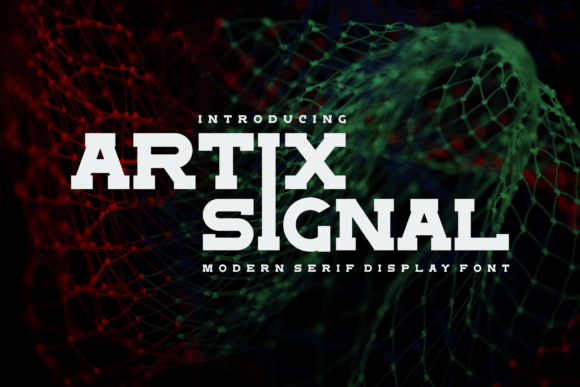
I still remember the frustration of working on a project, hours spent crafting the perfect design, only to realize that the font I chose was completely off. It was like the text was screaming at me, “I’m not working!” 😩 I was on a tight deadline, and my client was waiting for the final product. That’s when I stumbled upon Artix Signal, a stylish, modern serif font that changed the game for me.
First Impressions: A Love Affair with Artix Signal
Artix Signal is a sleek and sophisticated font that has become a staple in my design toolkit. Its clean lines and elegant curves make it perfect for adding a touch of refinement to any text. Whether I’m working on a print or digital project, Artix Signal brings a fresh and professional look that’s hard to resist.
Honest Review: The Good, the Bad, and the Quirks
• ✨ Clean and elegant design: Artix Signal’s modern serif design makes it perfect for projects that require a touch of sophistication.
• ✅ Versatility: It works beautifully in both print and digital designs, making it a great addition to any design toolkit.
• 💡 Easy to read: The font is clear and legible, even at small sizes, making it perfect for body text.
Small Quirks and Limitations:
While Artix Signal is an excellent font, it’s not perfect. Here are a few things to keep in mind:
• 🤔 Limited availability of stylistic alternates: While Artix Signal has some great OpenType features, it’s not overflowing with stylistic alternates.
• ⚠️ Not ideal for very large headings: Artix Signal is best suited for body text and smaller headings. For very large headings, you might want to choose a more dramatic font.
The Designer Behind Artix Signal: A Backstory
Artix Signal was designed by a team of typographers who wanted to create a font that would bring a touch of sophistication to any design project. With its clean lines and elegant curves, Artix Signal is the perfect choice for designers who want to elevate their work.
Font Name Artix Signal Font
Author artchiles design
Q: What is Artix Signal?
A: Artix Signal is a stylish, modern serif font designed for adding a touch of sophistication to any text.
Q: Is Artix Signal suitable for body text?
A: Yes, Artix Signal is clear and legible, making it perfect for body text.
Q: Does Artix Signal have OpenType features?
A: Yes, Artix Signal has some great OpenType features, including stylistic alternates and glyphs.